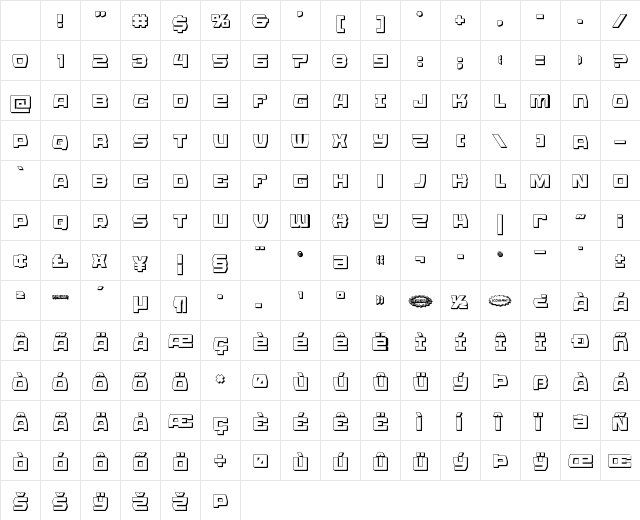
Olympic Carrier 3D Regular
Design Context for Olympic Carrier 3D
Olympic Carrier 3D is a composed and adaptable typeface that performs quietly and consistently across a wide range of design contexts.
Pro Tip: Use Olympic Carrier 3D in both headline and body roles to test its range before committing to a single application.